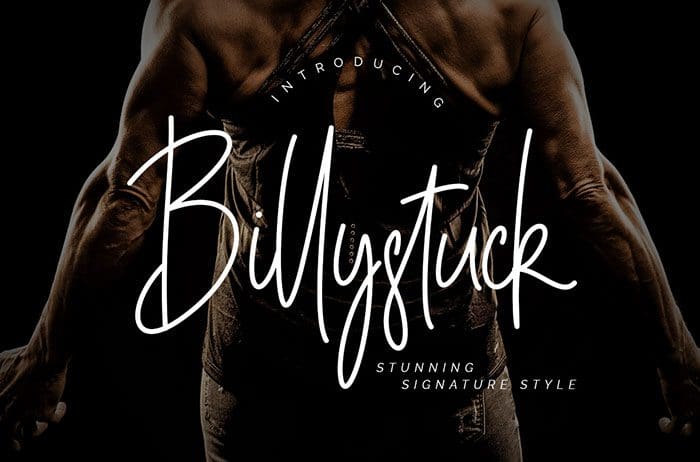
Billystuck Script Font
Billystuck Script Font is a stylish and stunning signature typeface. Billystuck personal touch movement which makes your latest project look amazing. Thanks to Creatype Studio for sharing this font! Take a look at this portfolio for more of his stunning fonts.